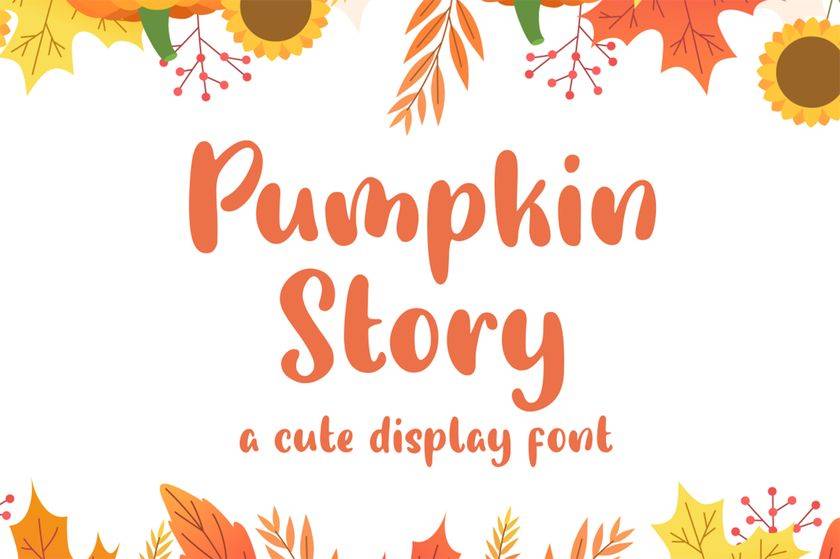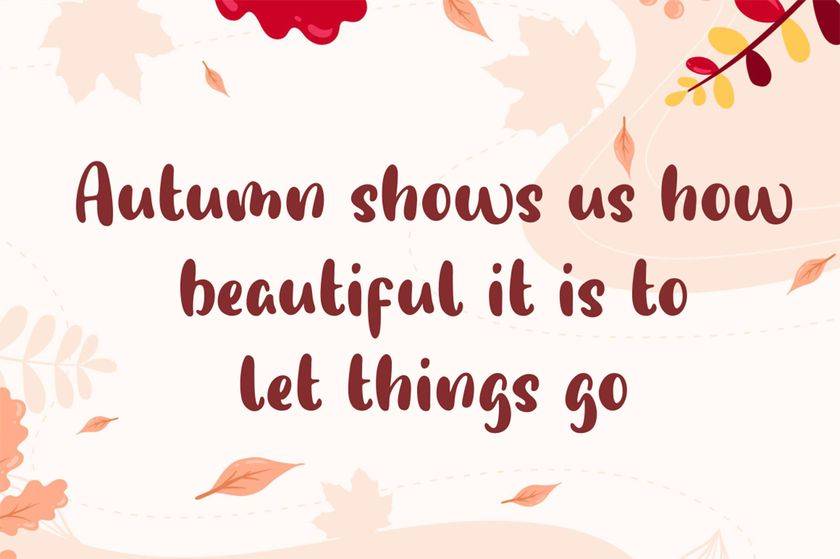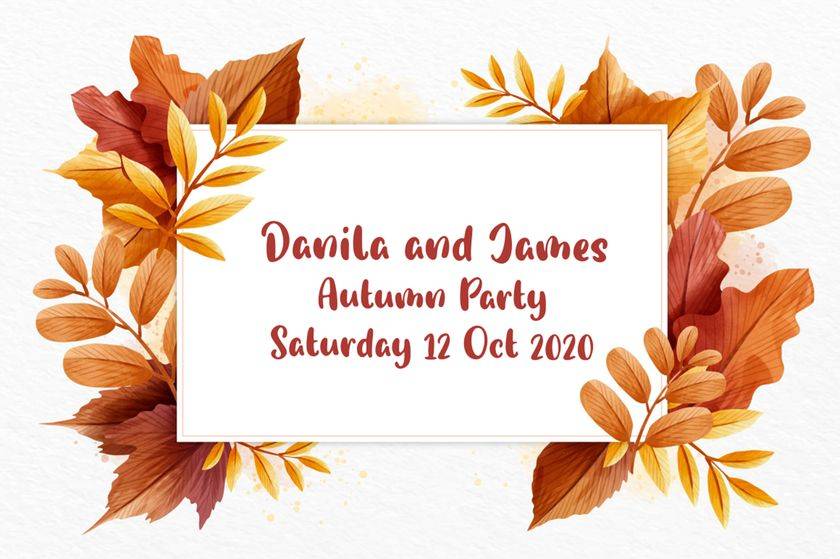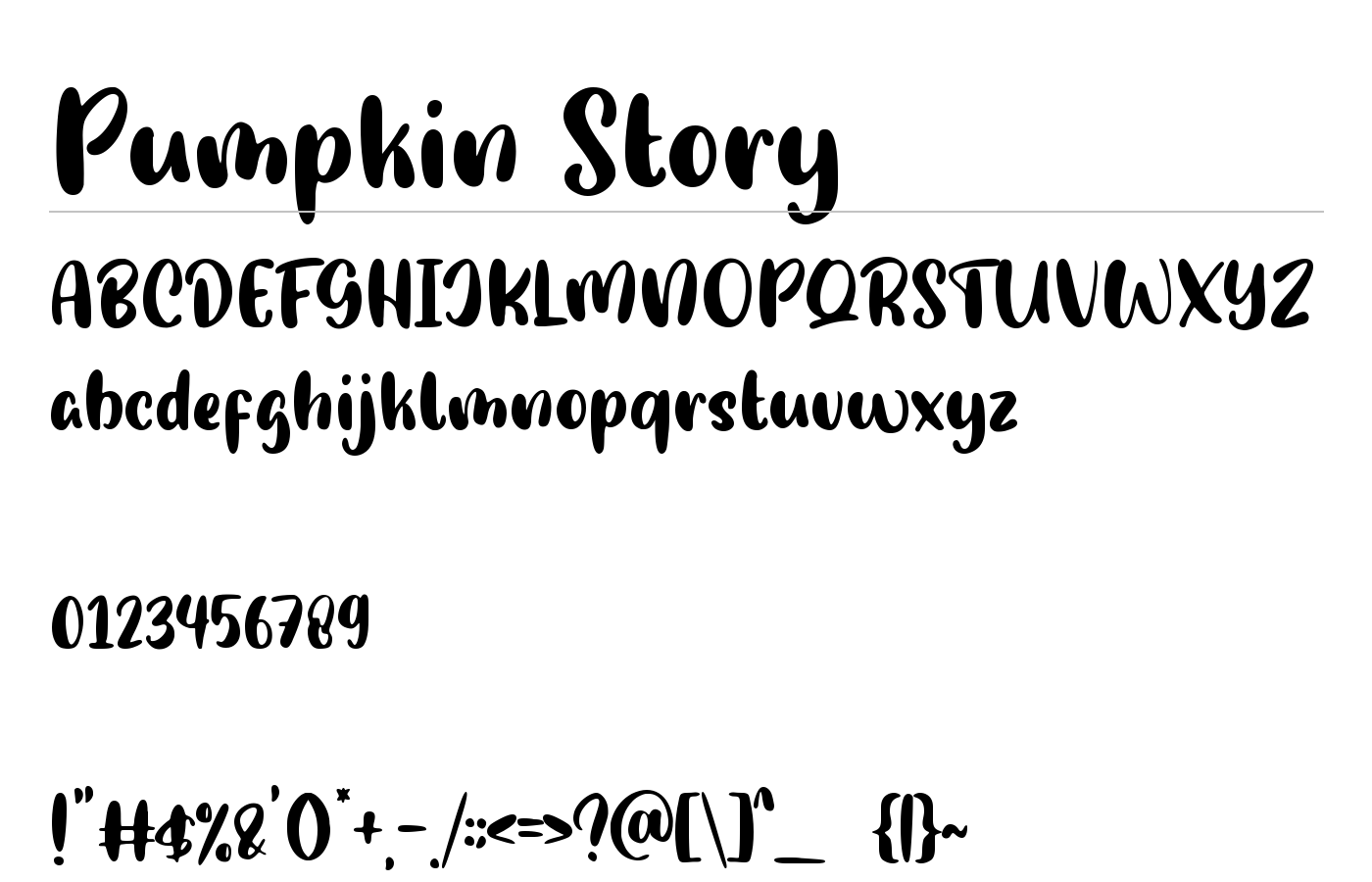
Pumpkin Story is a playful, bold script font with rounded, smooth letterforms that give it a warm and friendly feel. Its moderately high x-height and consistent stroke weight make it highly legible, while the hand-drawn style adds a casual and inviting personality perfect for fun, creative branding, children's books, or informal headlines. This font works well wherever a cheerful and approachable tone is desired.
| Font family | Pumpkin Story Font |
| Release date | 2020-09-30 |
| Designer | Muhamad Yusron Billah |